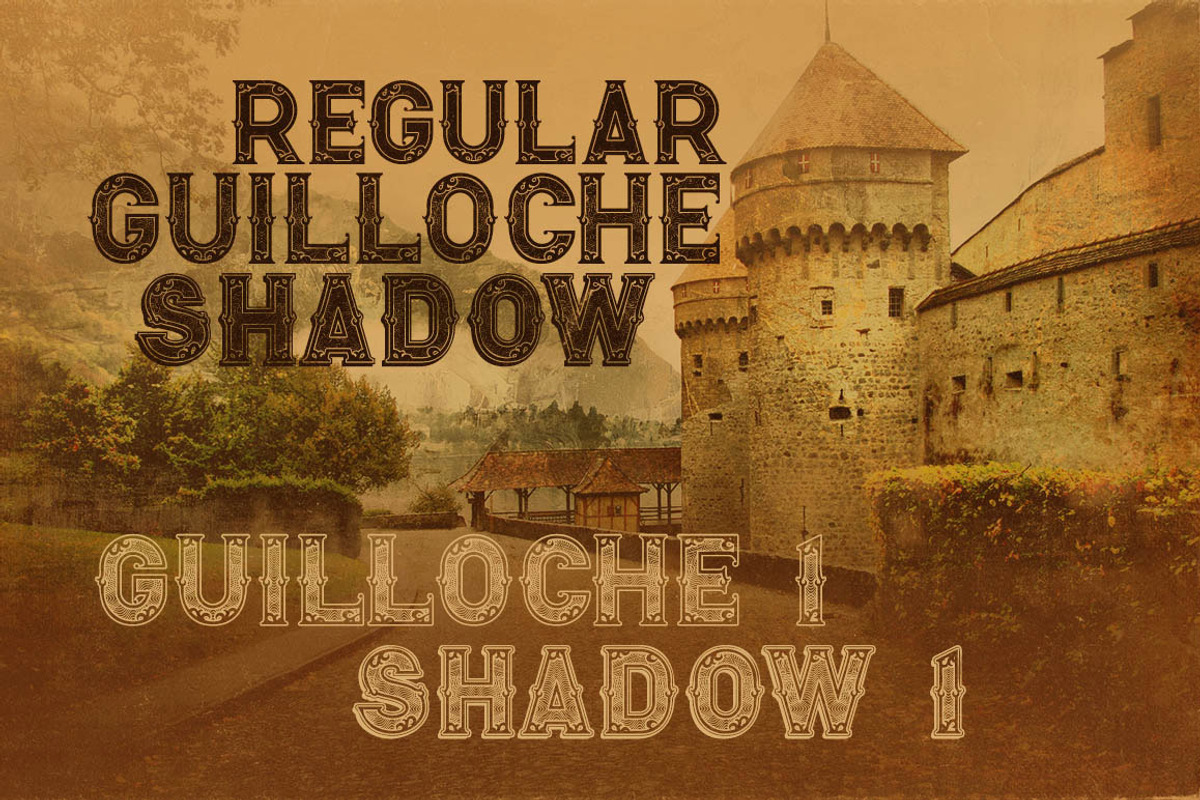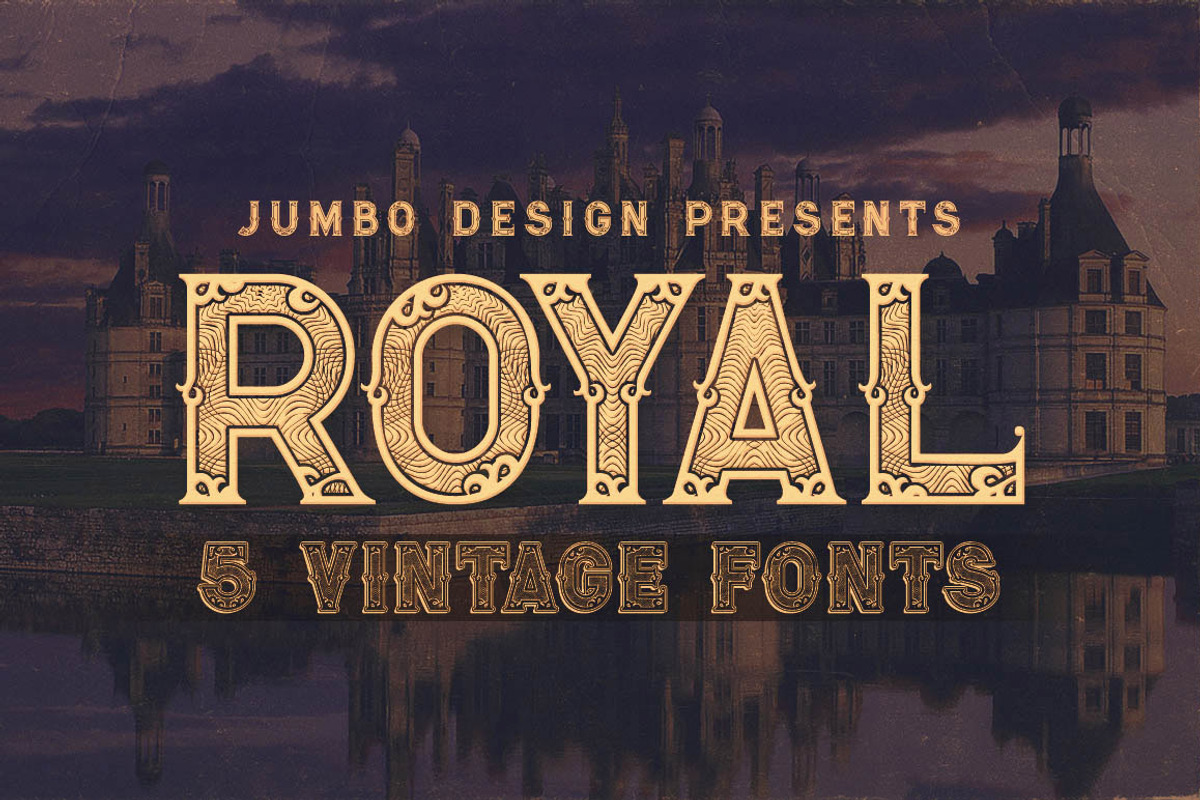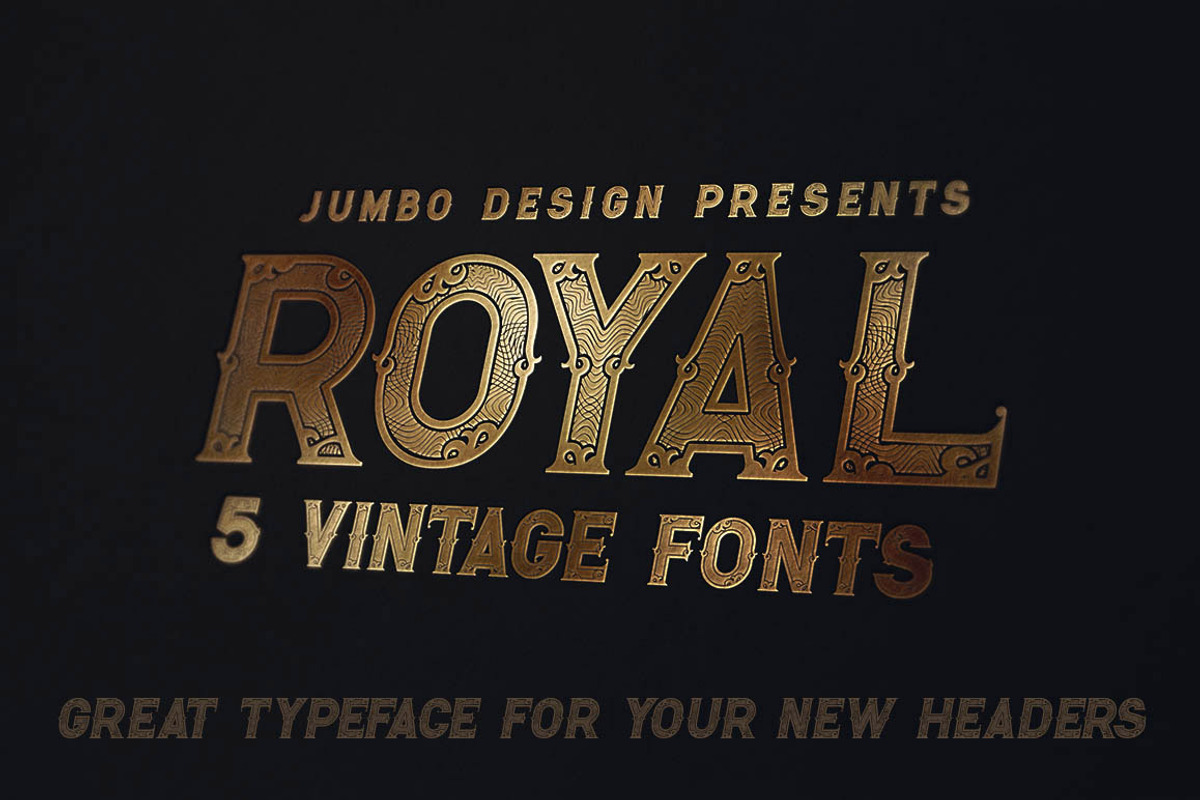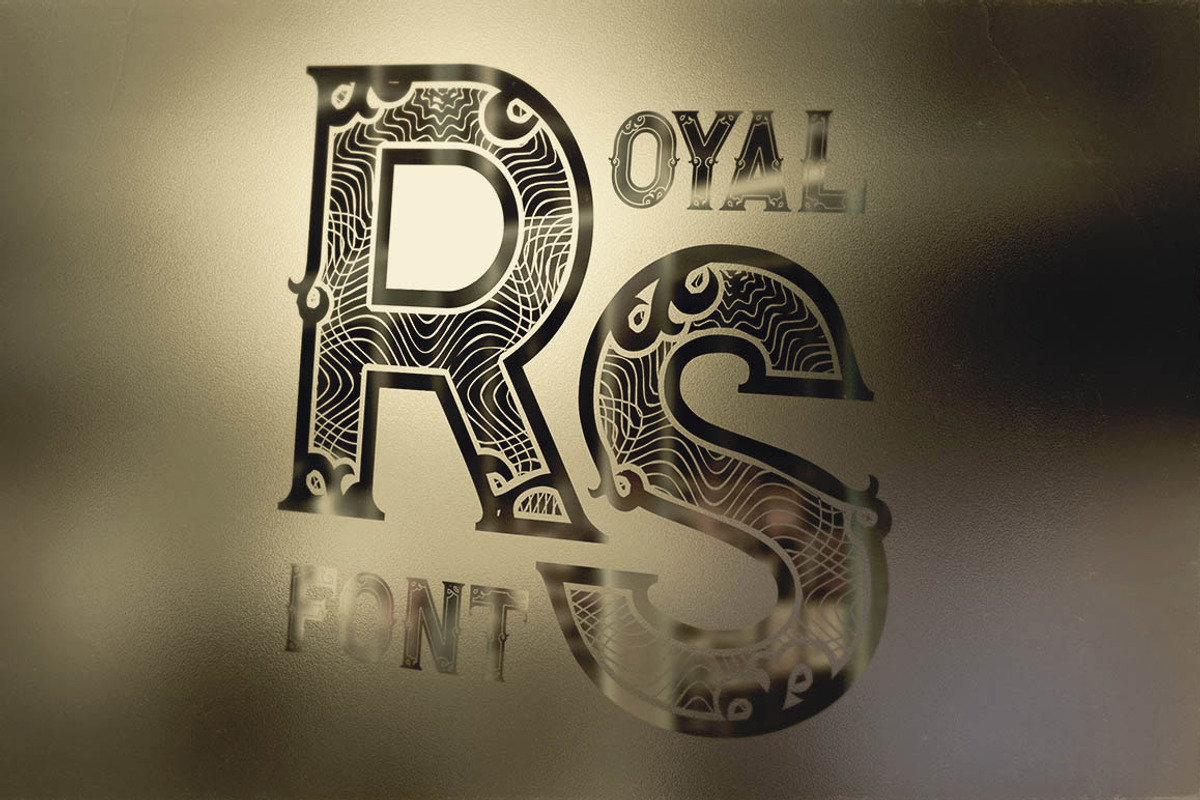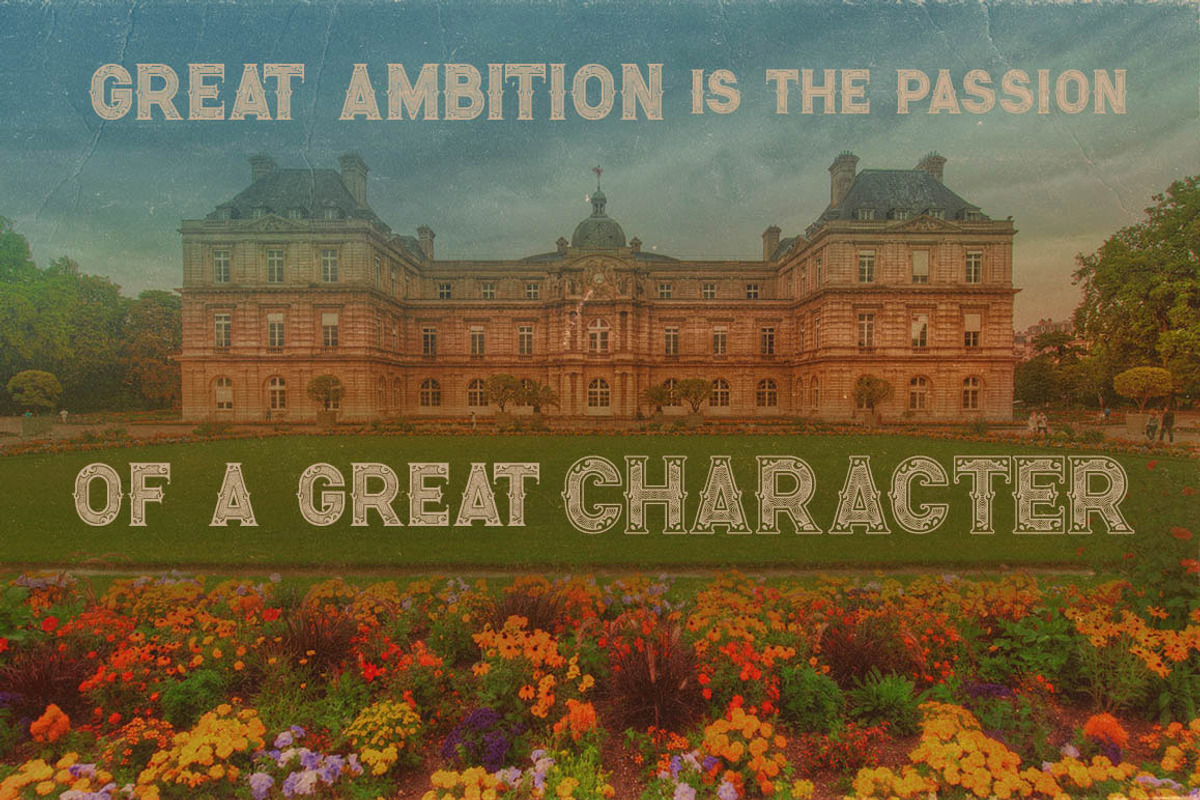
Royal - Vintage Style Font
Royal - Vintage Style Font by JumboDesign is a font selected for branding, posters, packaging, typography.
Why Royal - Vintage Style Font is worth a look
Royal - Vintage Style Font by JumboDesign fits naturally into Branding, posters, packaging, typography.